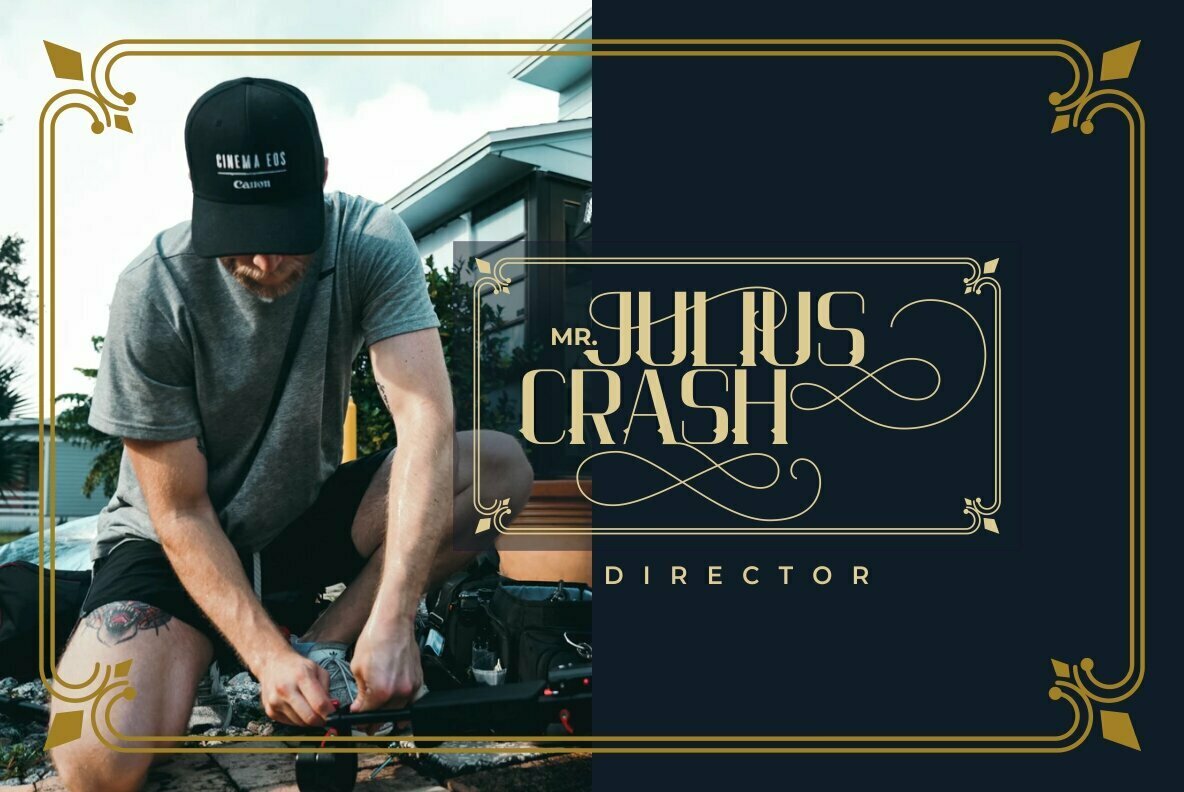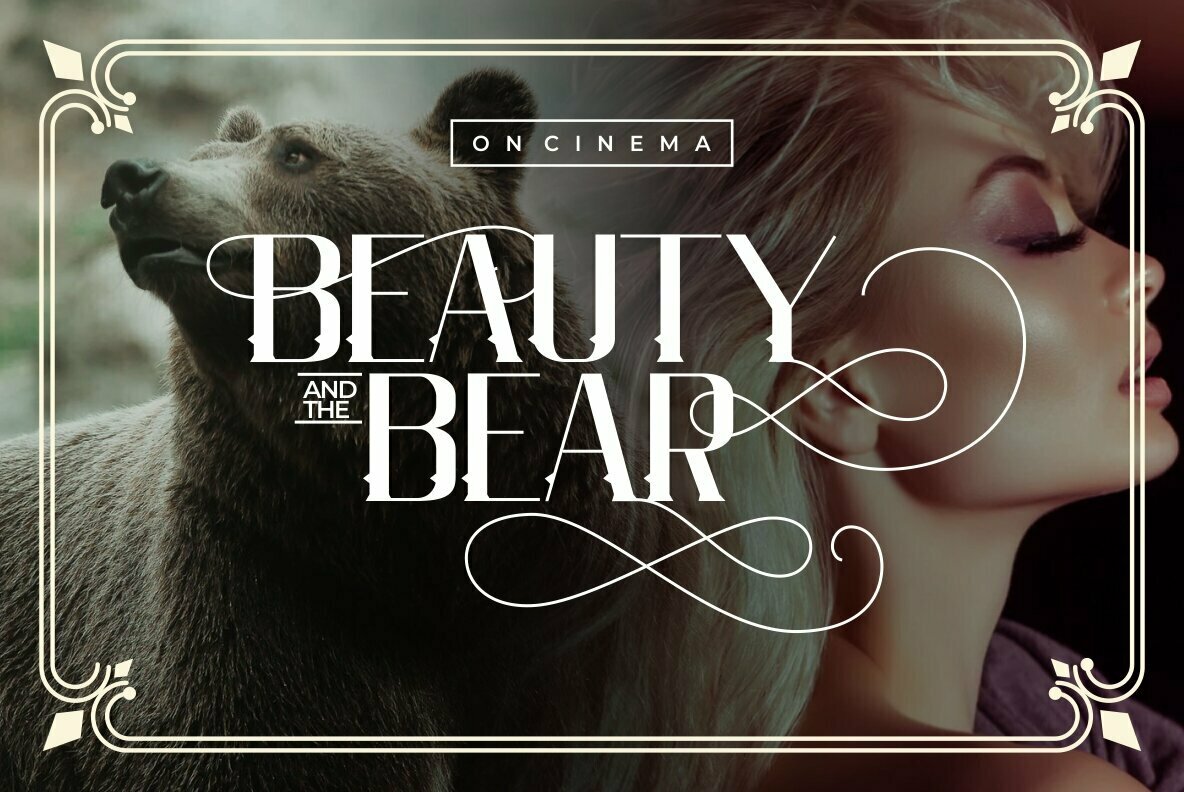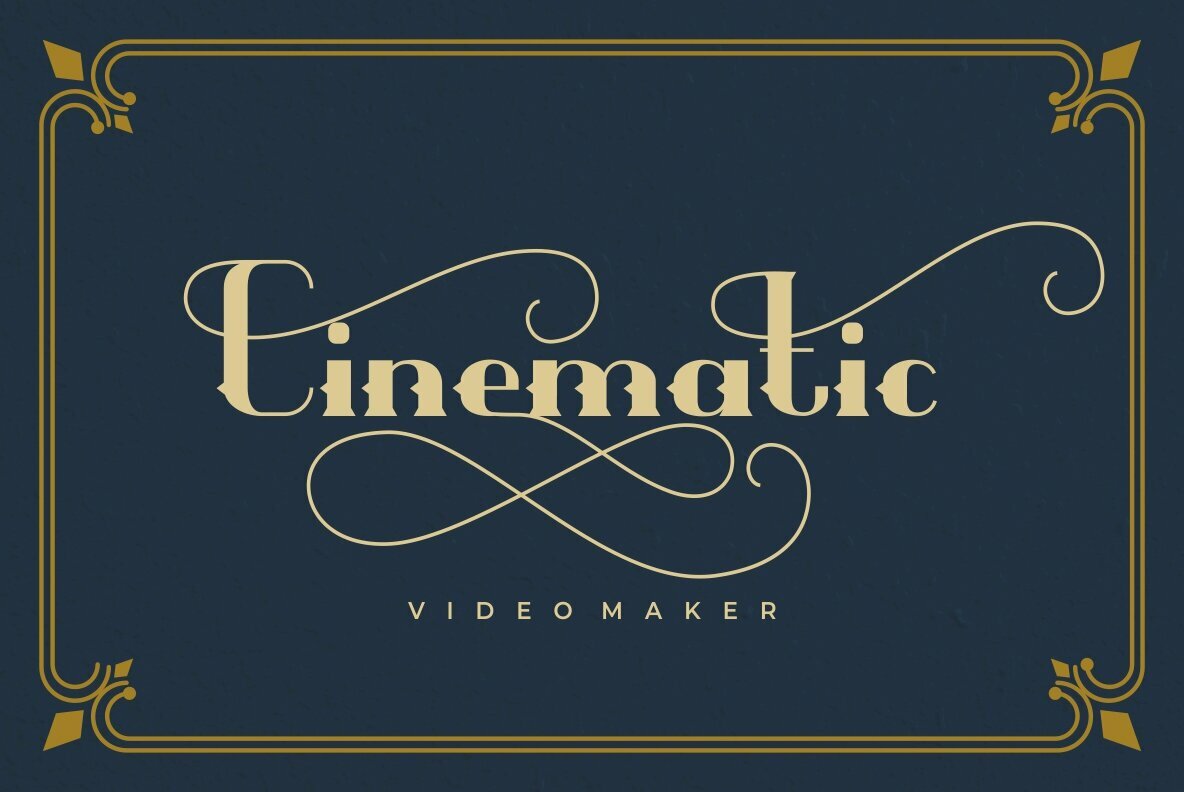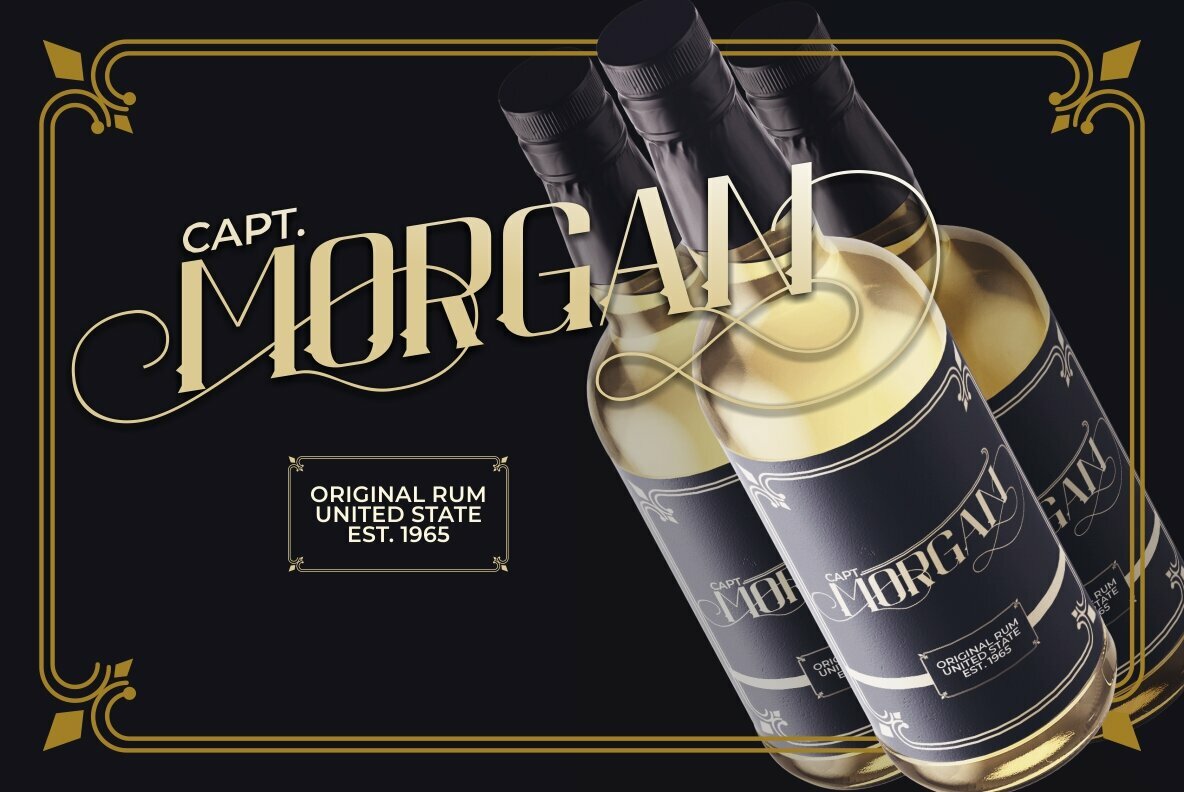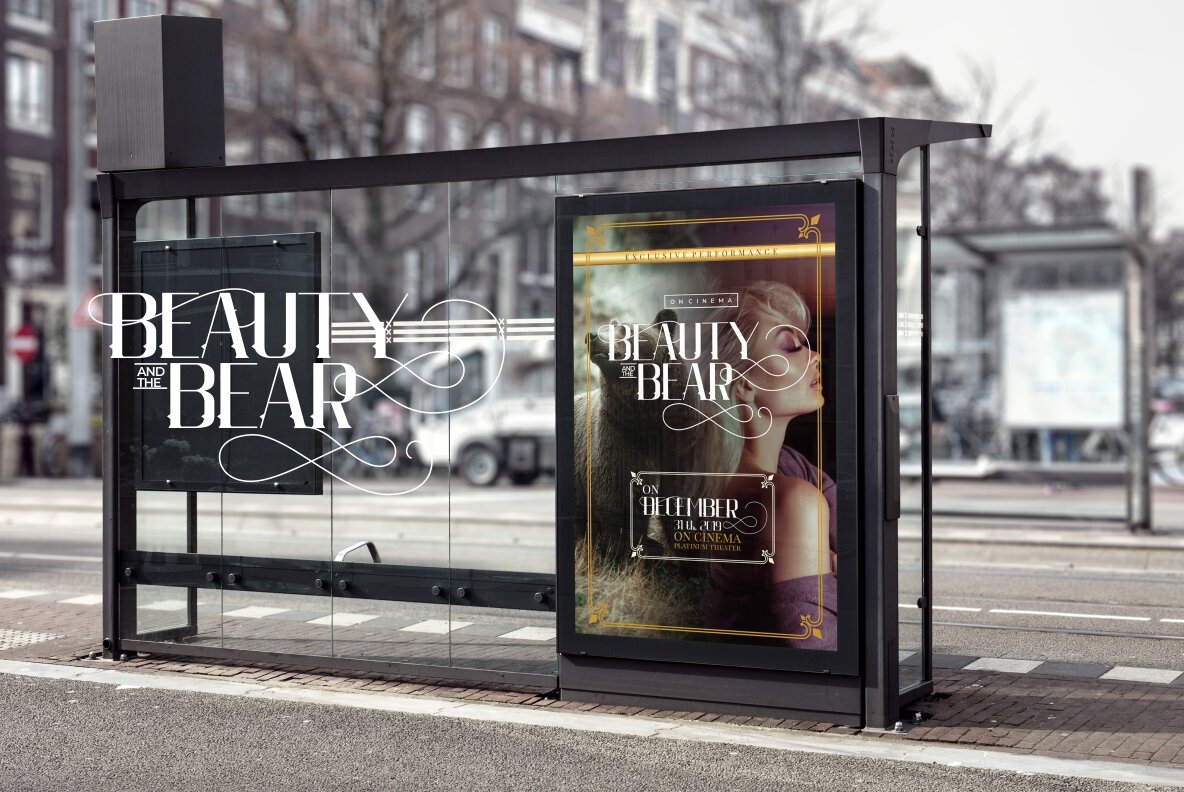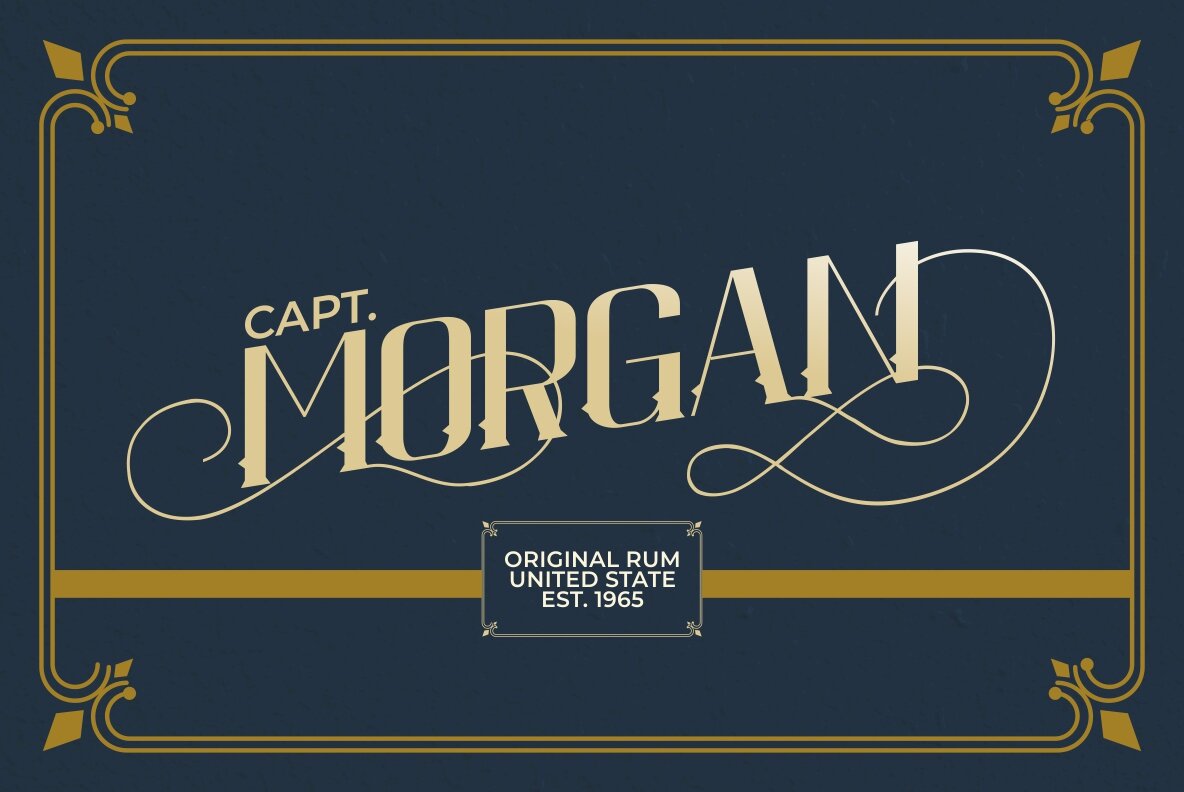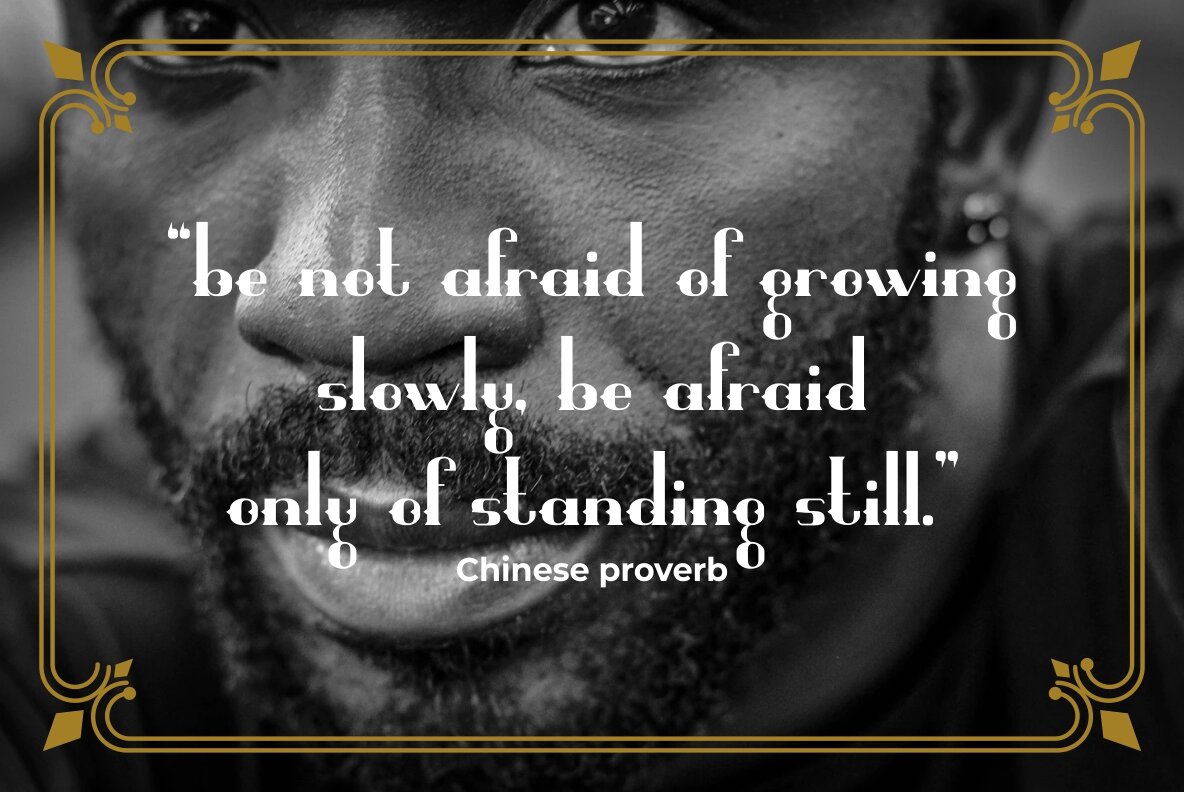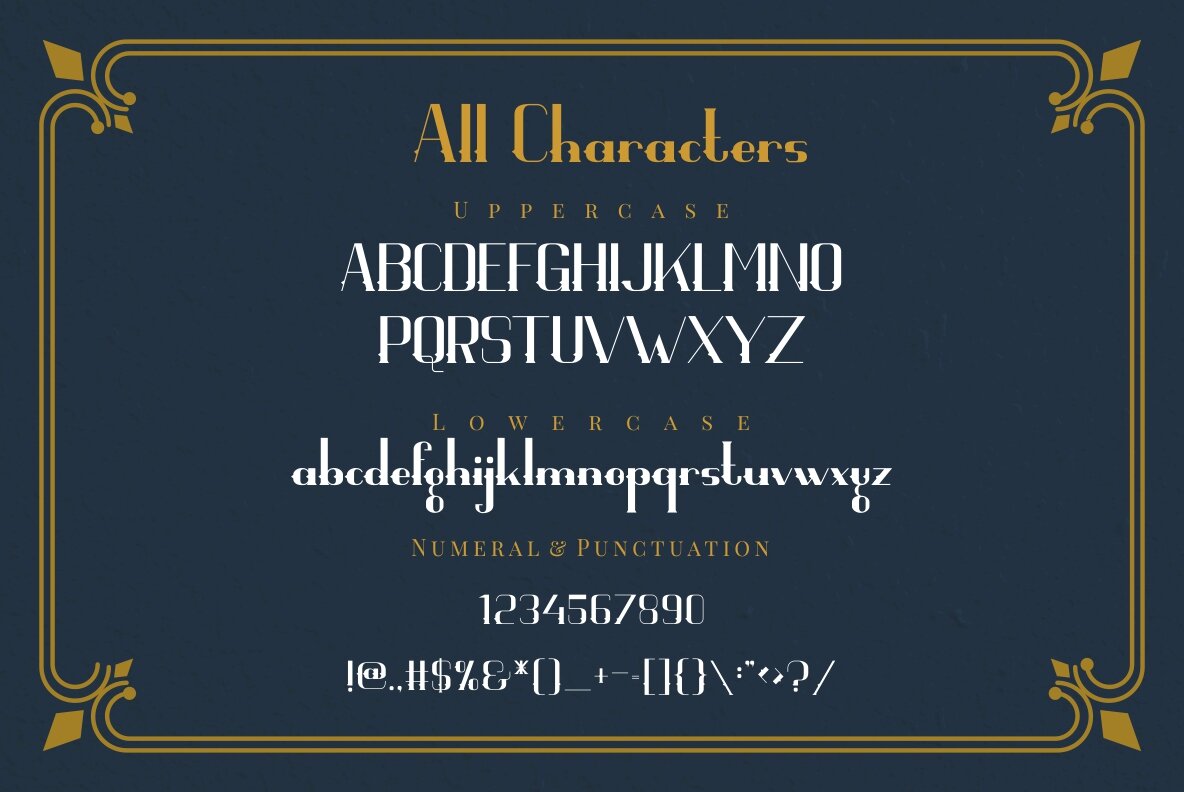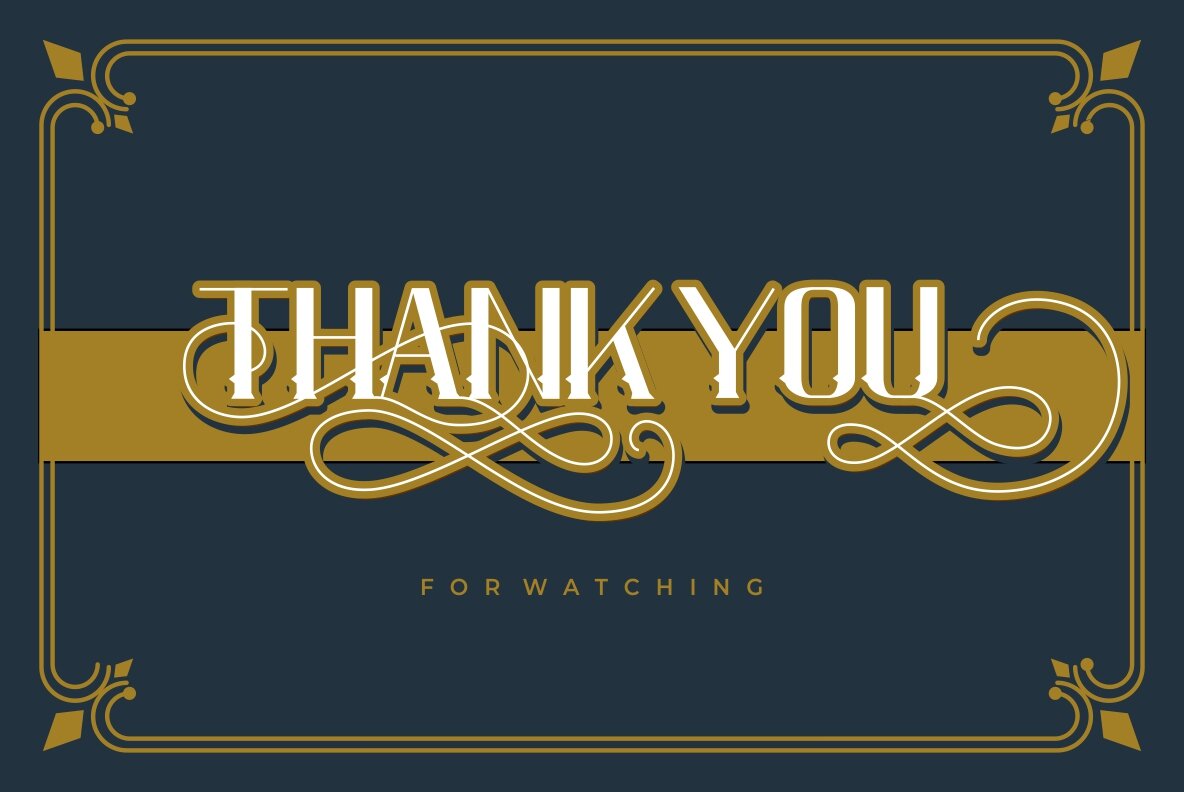
Visaka Font
Visaka
The Visaka typeface effortlessly combines the nostalgia of vintage design with an air of luxury, making it a distinctive choice for discerning creatives. Its classic and elegant appeal, along with a unique flair, ensures versatility across various design needs.Visaka: A Classic Vintage Display Typeface
Visaka's charm and adaptability position it as an essential tool in the toolkit of any graphic designer or creative director.